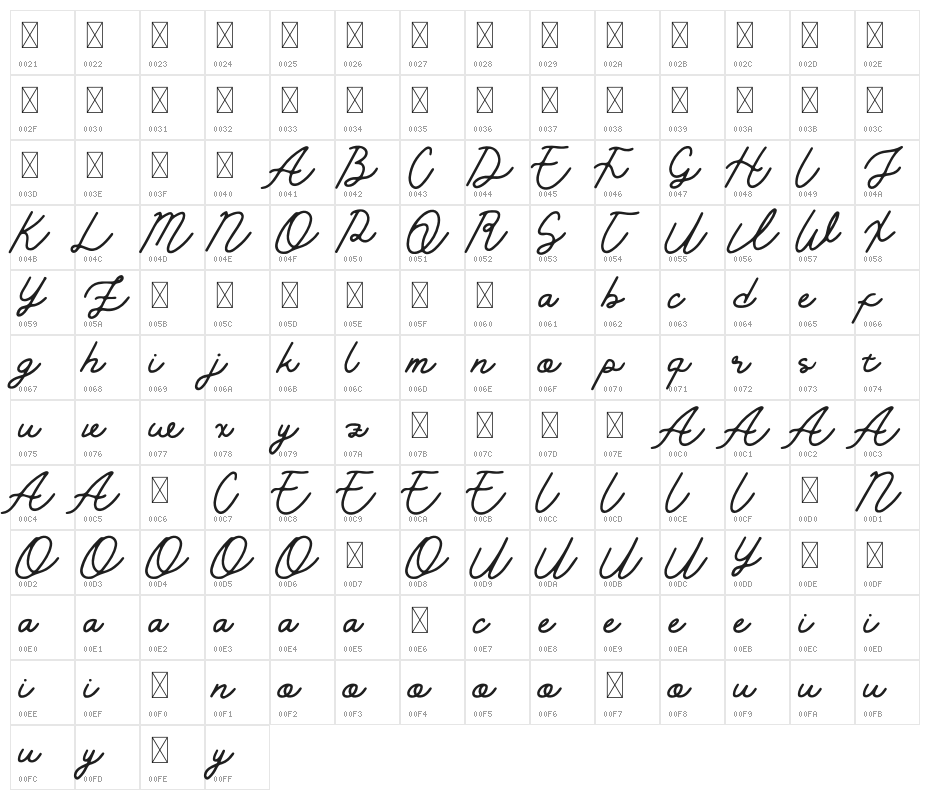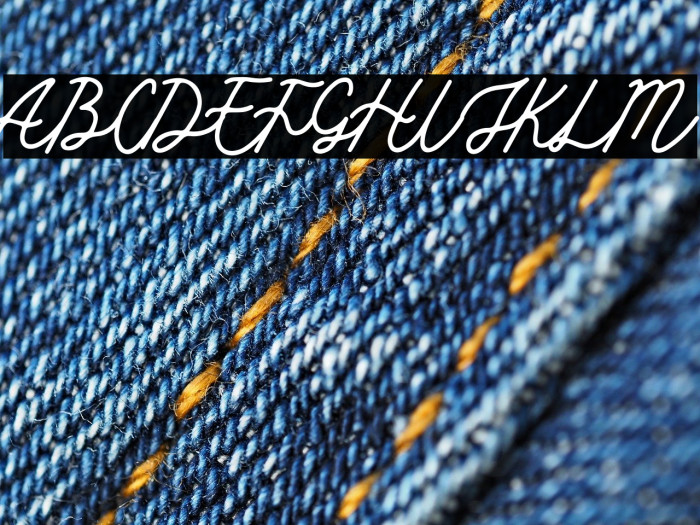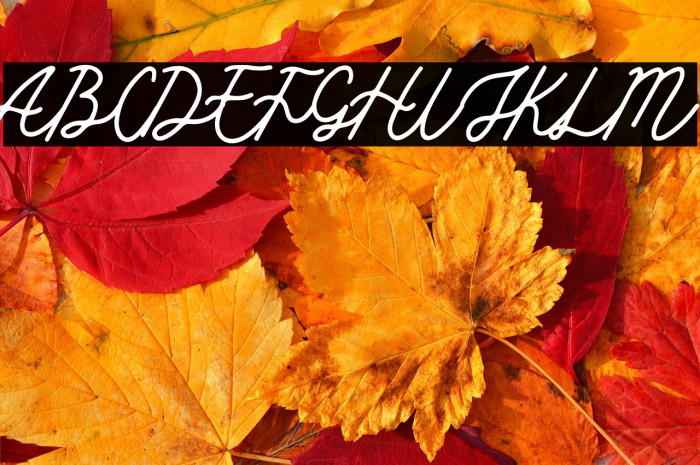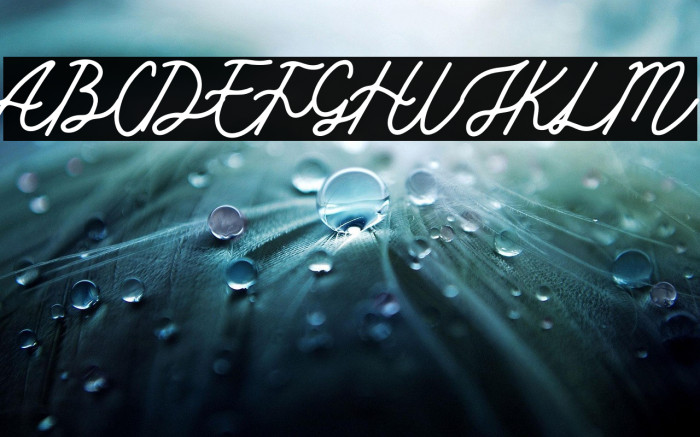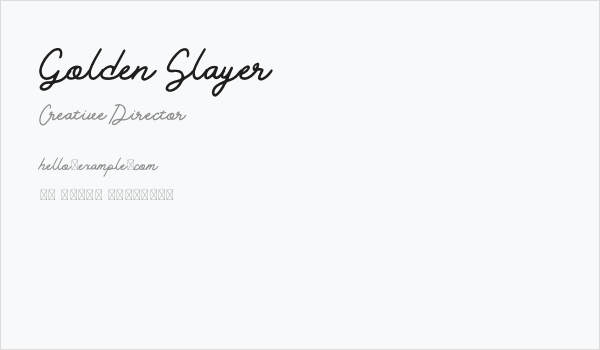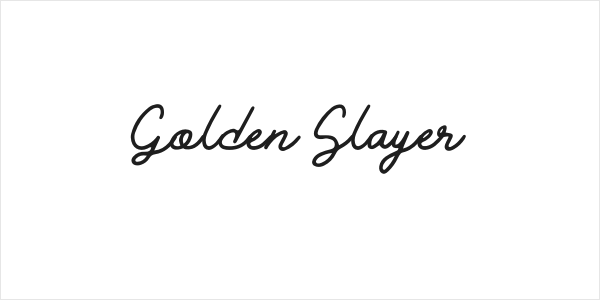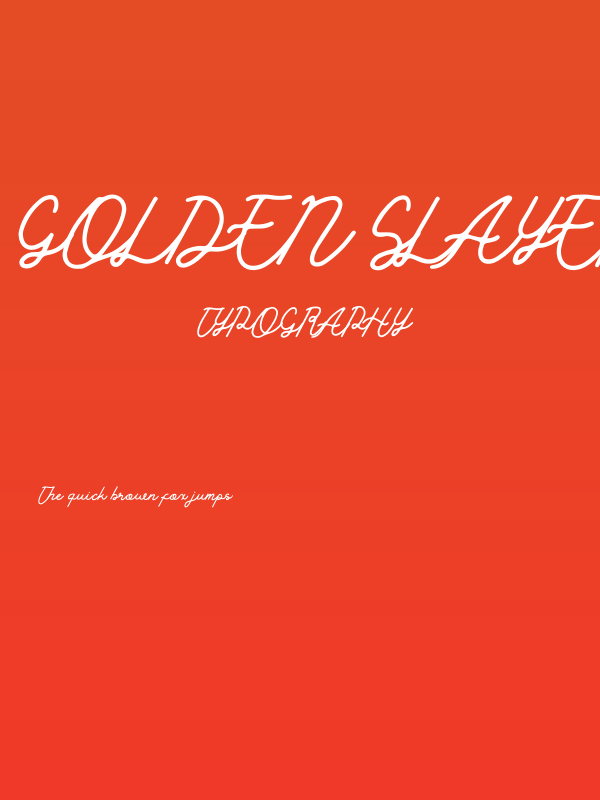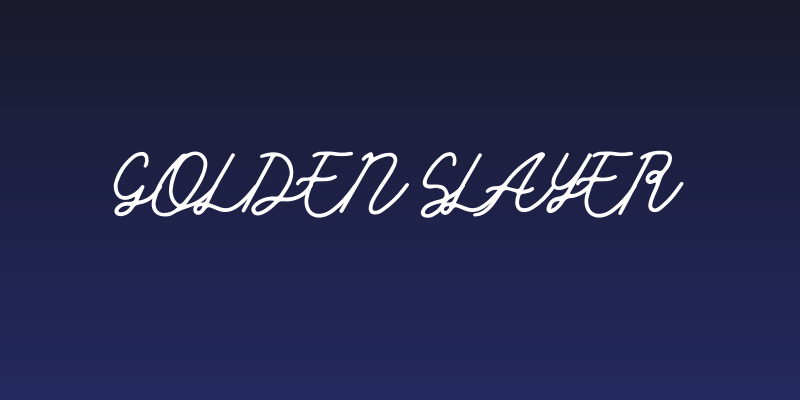
Golden Slayer Font
Golden Slayer Description
This font features a flowing, cursive style that exudes elegance and sophistication. The uppercase letters are gracefully connected, while the lowercase letters maintain a consistent fluidity, enhancing readability. The font's design is reminiscent of traditional calligraphy, with smooth curves and a slight slant that adds a dynamic feel. The absence of special characters suggests a focus on alphabetic and numeric characters, making it ideal for projects that require a touch of class and refinement. The consistent stroke width throughout the characters provides a balanced appearance, ensuring that the text remains legible even at smaller sizes.
| Proposed Projects | Ideal for wedding invitations, elegant branding, personal stationery, and artistic projects. |